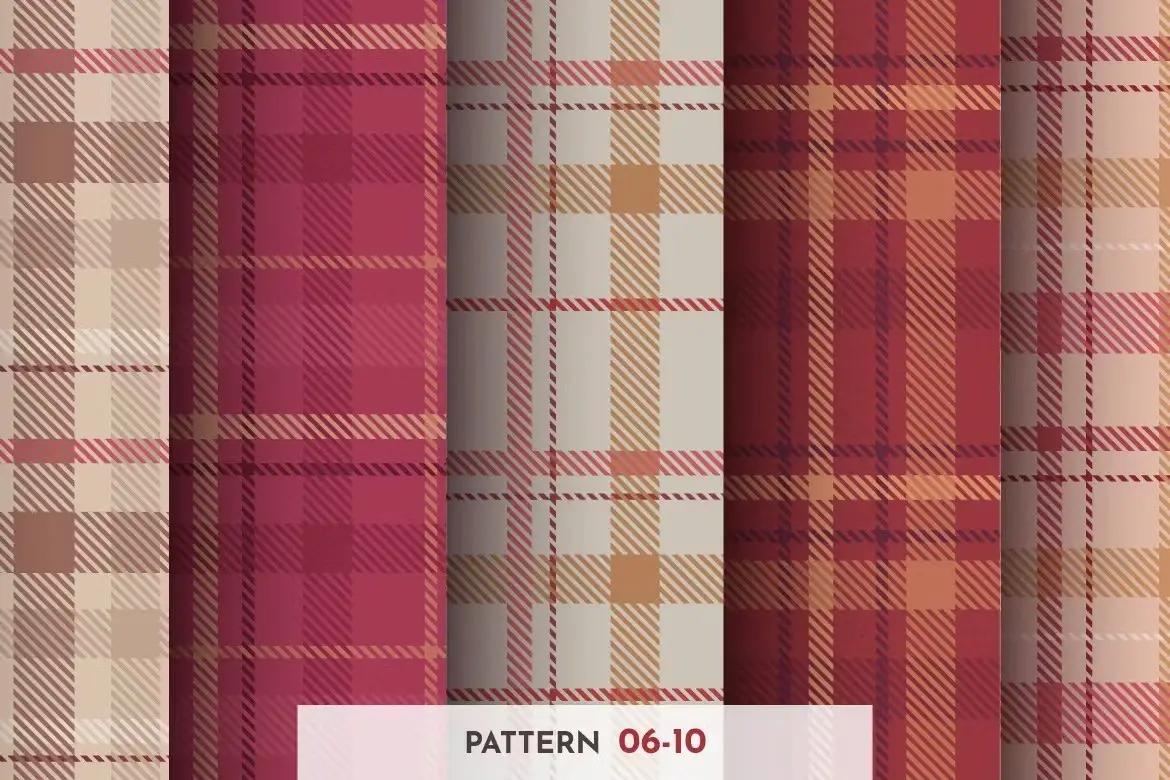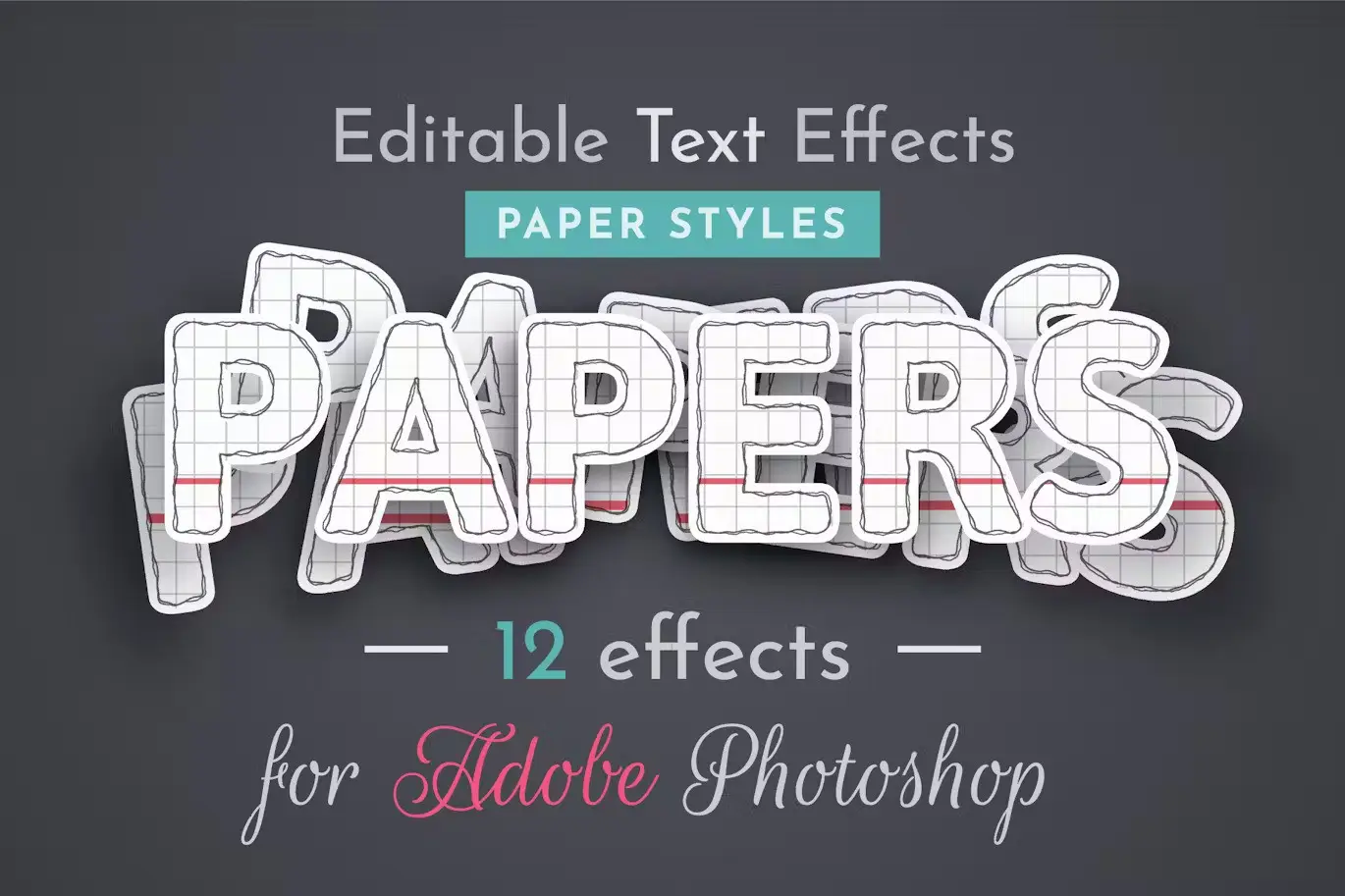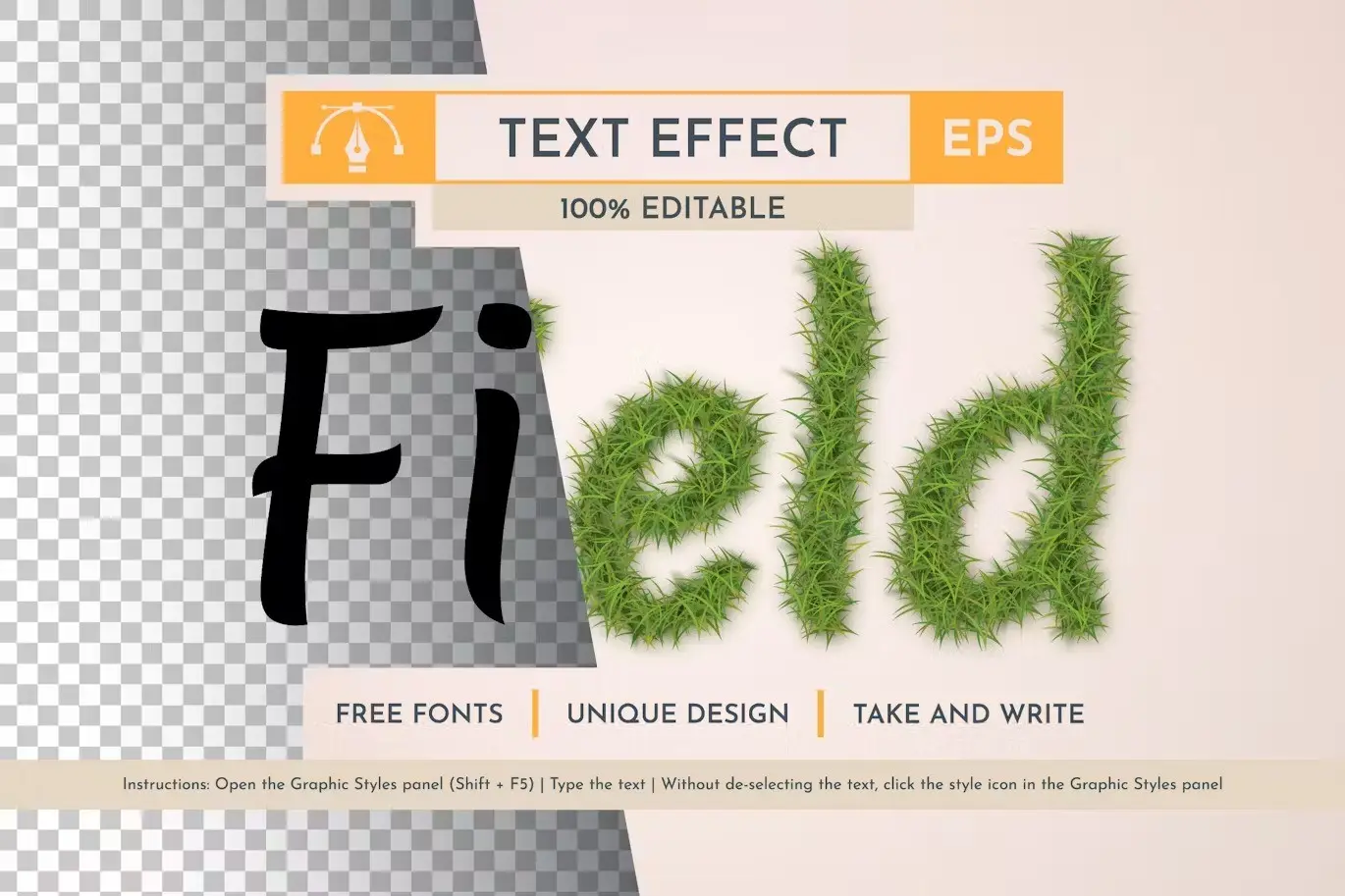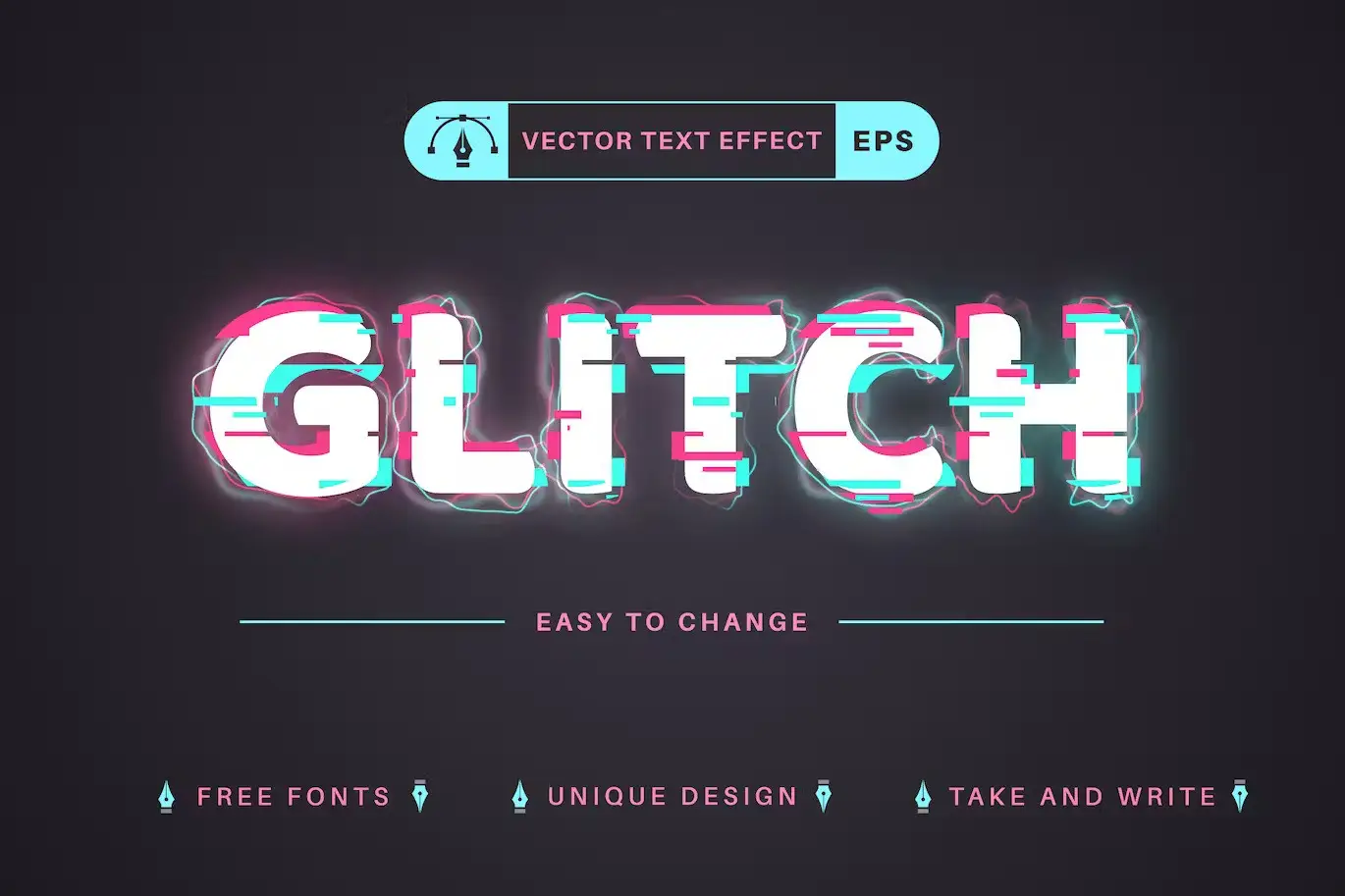
Top 15 Editable Text Effects & Font Styles by rwgusev (Part 2)
Hey there, creative soul! 🎨 Ready to dive deeper into the incredible rwgusev collection? We’re back with Part 2, and trust me, this round is absolutely packed with design gold. From glowing strokes that scream neon vibes 🚀 to playful paint splatters and massive brush bundles, this list has everything you need to turn your typography and illustrations into jaw-dropping masterpieces. Let’s unlock your imagination, one click at a time! ✨
Why Use These rwgusev Design Resources?
Whether you’re a seasoned graphic designer or just starting your digital art journey, the rwgusev collection offers a treasure trove of tools that save you time and spark pure creativity. These editable text effects and vector brushes are fully customizable, meaning you can tweak colors, sizes, and styles without breaking a sweat. 🖌️ Say goodbye to boring headers and hello to typography that talks!.
Top 15 rwgusev Collection Picks
Glow stroke – editable text effect, font style
Glow stroke - editable text effect, font style
Make your words literally *glow* with this stunning neon-inspired effect! 💡 Perfect for logos, party flyers, or anything that needs a bright, electric pop.
Paint Splatter – Editable Text Effect, Font Style
Paint Splatter - Editable Text Effect, Font Style
Get messy (in the best way!) with this vibrant, drip-ready text style. 🎨 It’s pure chaotic creativity for album covers, streetwear, or rebellious branding.
Field Grass Editable Text Effect, Graphic Style
Bring nature to your typography with this lush, grassy vector style! 🌿 Perfect for organic brands, eco-friendly projects, or whimsical storybooks.
Glitch – Editable Text Effect, Font Style
Glitch - Editable Text Effect, Font Style
Channel those retro cyberpunk vibes with this super cool glitch effect! 💾 It’s a total must-have for tech, gaming, or any futuristic design.
54 Simple Vector Text Effects
An absolute *arsenal* of typography tools! 🛠️ With 54 different styles, you’ll never run out of ideas for logos, headlines, or slogans.
10 Seamless Camouflage Patterns
Go undercover in style with these crisp, seamless camo patterns! 🖤💚 Perfect for fabric design, packaging, or any project that needs an urban edge.
12 Paper Raster Text Effects
Add a lovely, tactile paper texture to your words! 📜✂️ It’s ideal for scrapbooking, school projects, or any design needing that handcrafted, cozy feel.
164 Cartoon Vector Brushes For Adobe Illustrator
A *massive* collection to bring your wackiest cartoon characters to life! 🐱🤪 These brushes are pure fun for any doodler or illustrator.
10 Seamless Classic Tartan Patterns
Add a touch of timeless elegance with these classic tartan patterns! 🏴󠁧󠁢󠁳󠁣󠁴󠁿 Perfect for holiday designs, textiles, or vintage-inspired branding.
160 Ink Doodle Vector Brushes
Love the look of ink? You’ll go bonkers for this massive set of 160 doodle brushes! 🖊️✨ From playful squiggles to expressive strokes, it’s doodle heaven.
Set 100 Editable Text Effects
One hundred effects? Yes, please! 🎉 This Photoshop powerhouse gives you endless possibilities to make your text shine, pop, and wow.
Set 100 Editable Text Effects
Another incredible bundle of 100 effects? You bet! 🚀 This collection is perfect for designers who want variety, versatility, and instant inspiration.
Set 10 School Editable Text Effects
Back to school has never looked this cool! 📚✏️ These playful, colorful effects are perfect for classroom materials, posters, and fun projects.
Bundle 100 Editable Text Effects
The ultimate treasure chest of typography! 💎 With 100 editable effects, you’ll have a style for every mood, project, and creative whim.
164 Cartoon Brushes | Adobe Illustrator
Round up your creative posse with this super fun set of 164 cartoon brushes! 🌟 Perfect for character design, comics, and adding a dash of whimsy.
Conclusion
And there you have it — 15 incredible tools from the amazing rwgusev collection that are just waiting to supercharge your next project! 🚀 Whether you’re into glowing typography, messy paint splatters, or huge cartoon brush packs, there’s something here to ignite your creative spark. Don’t wait to make your designs unforgettable; grab these goodies and start creating magic today! 🎨✨
Can I customize the colors and sizes of these effects?
Absolutely! That’s the beauty of these being ‘editable’ text effects. You can easily tweak the colors, stroke widths, gradients, and more to perfectly match your brand or project vibe. 🎨